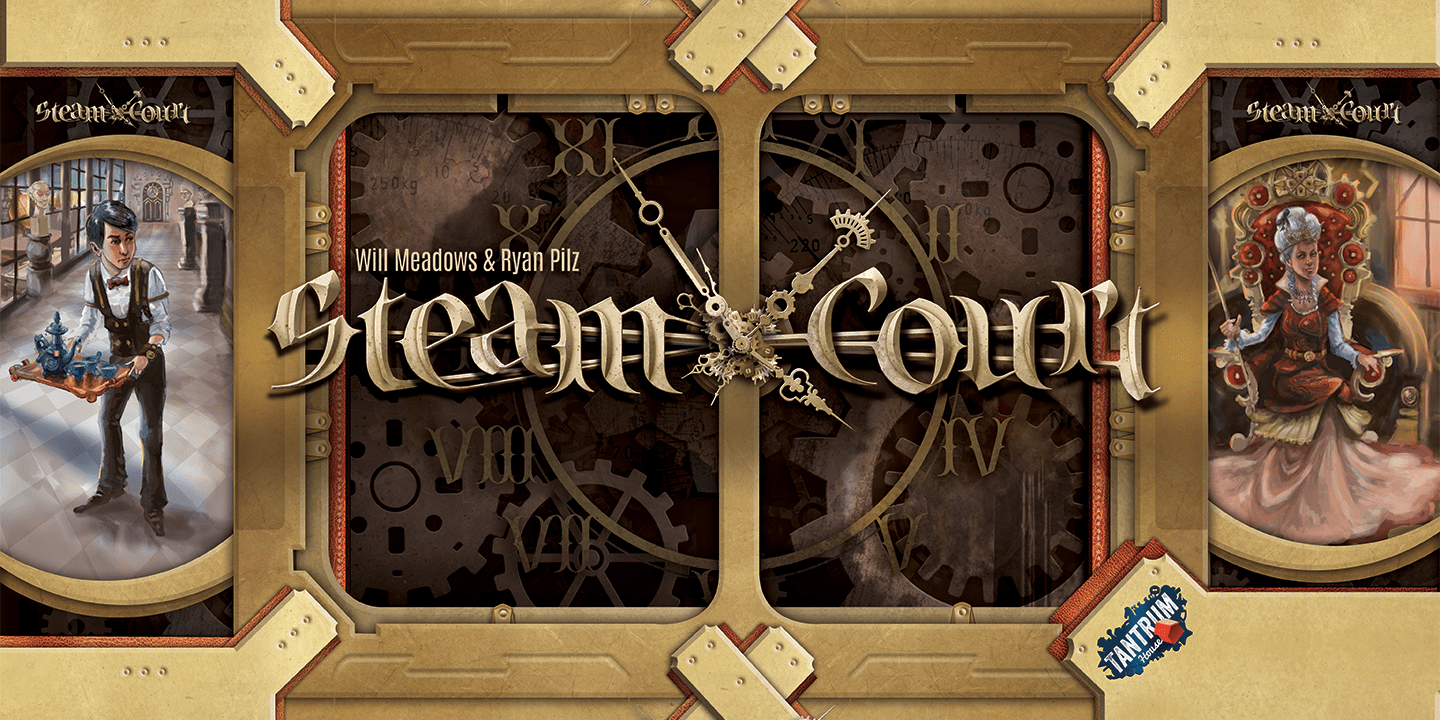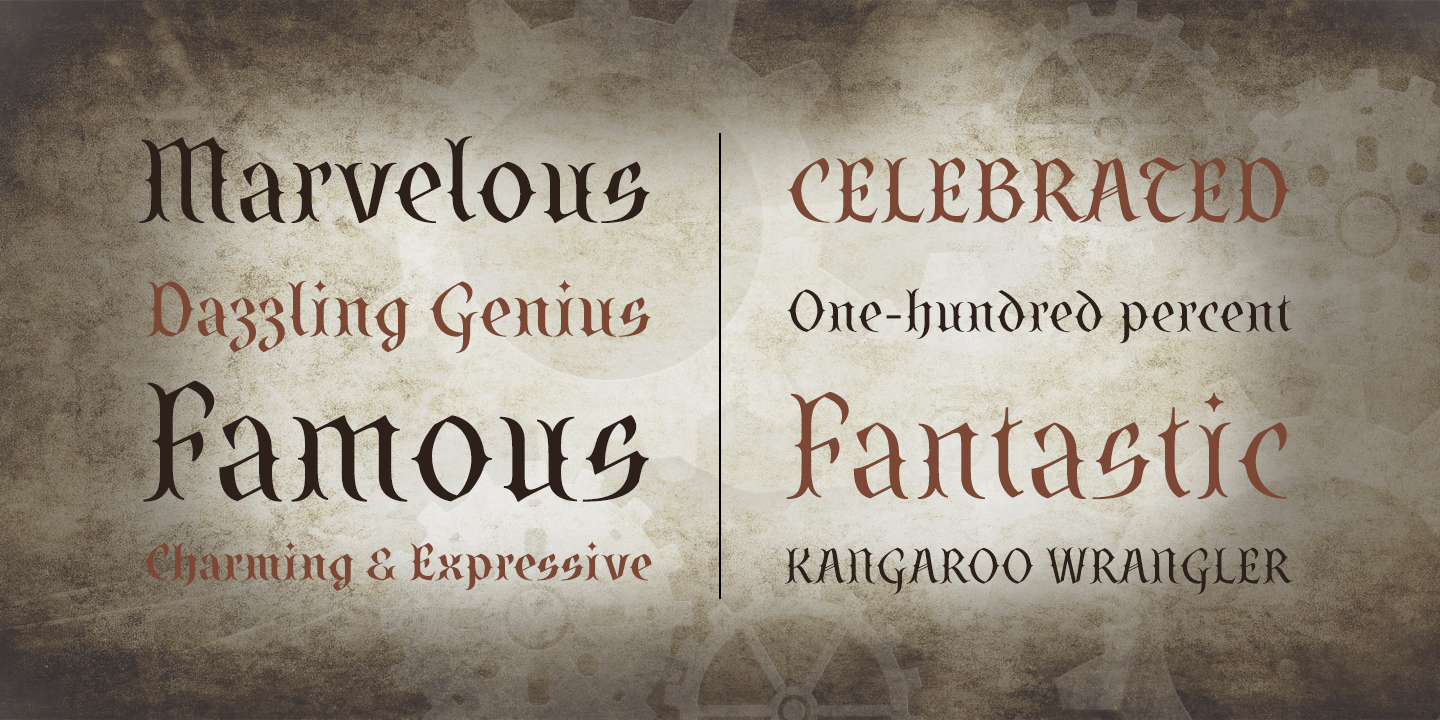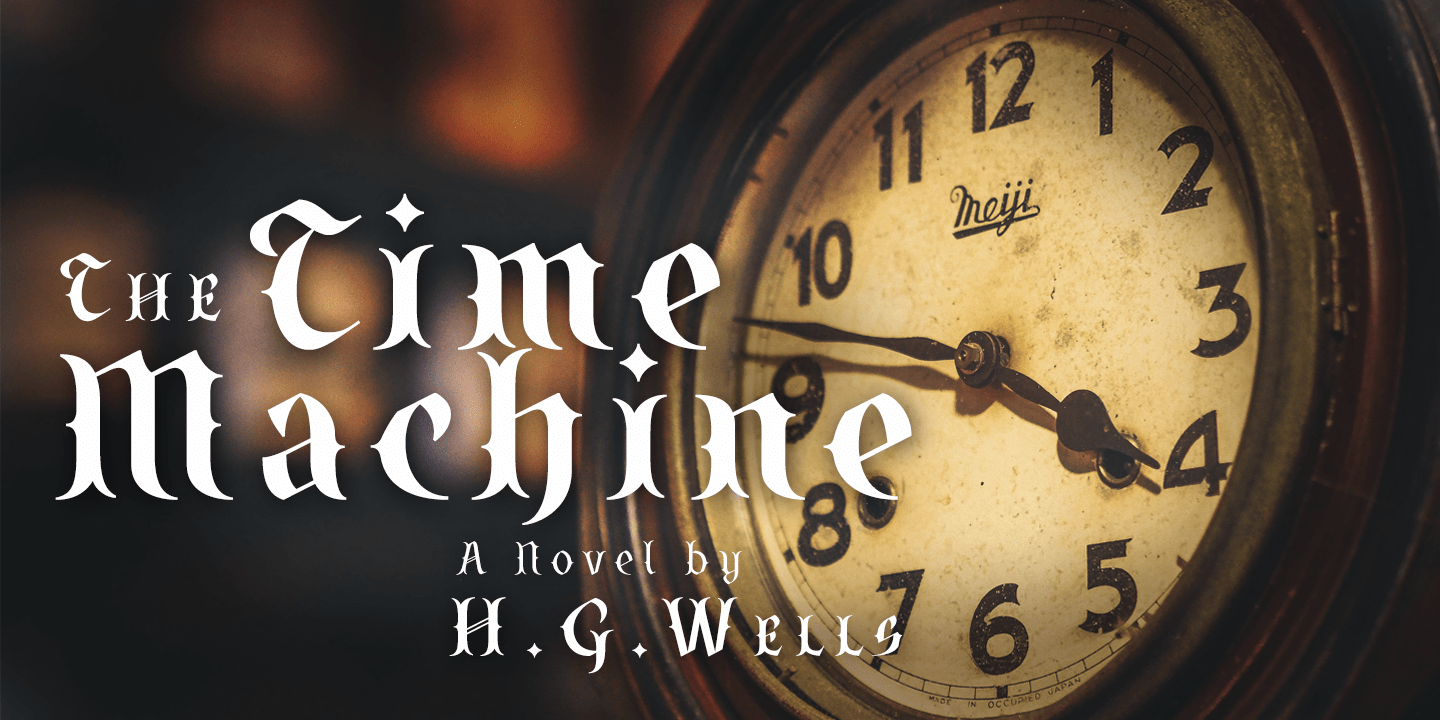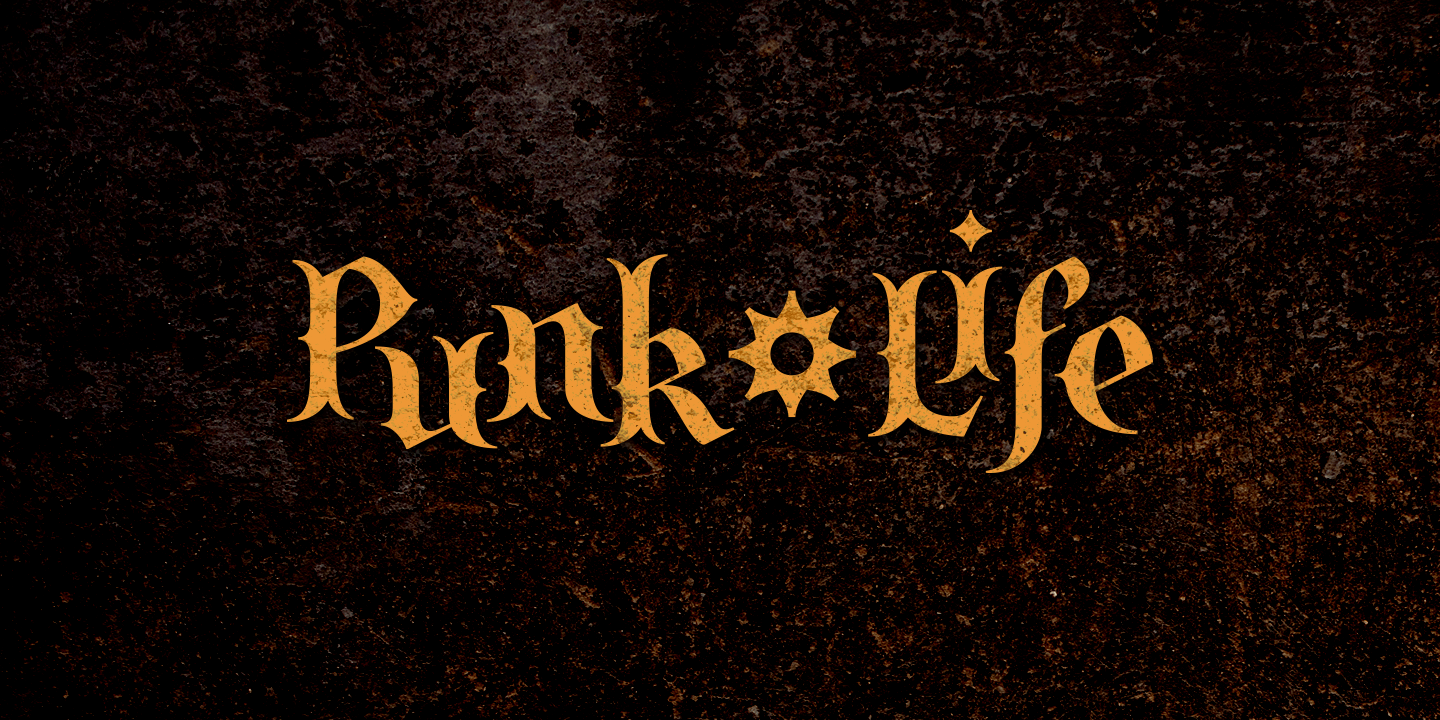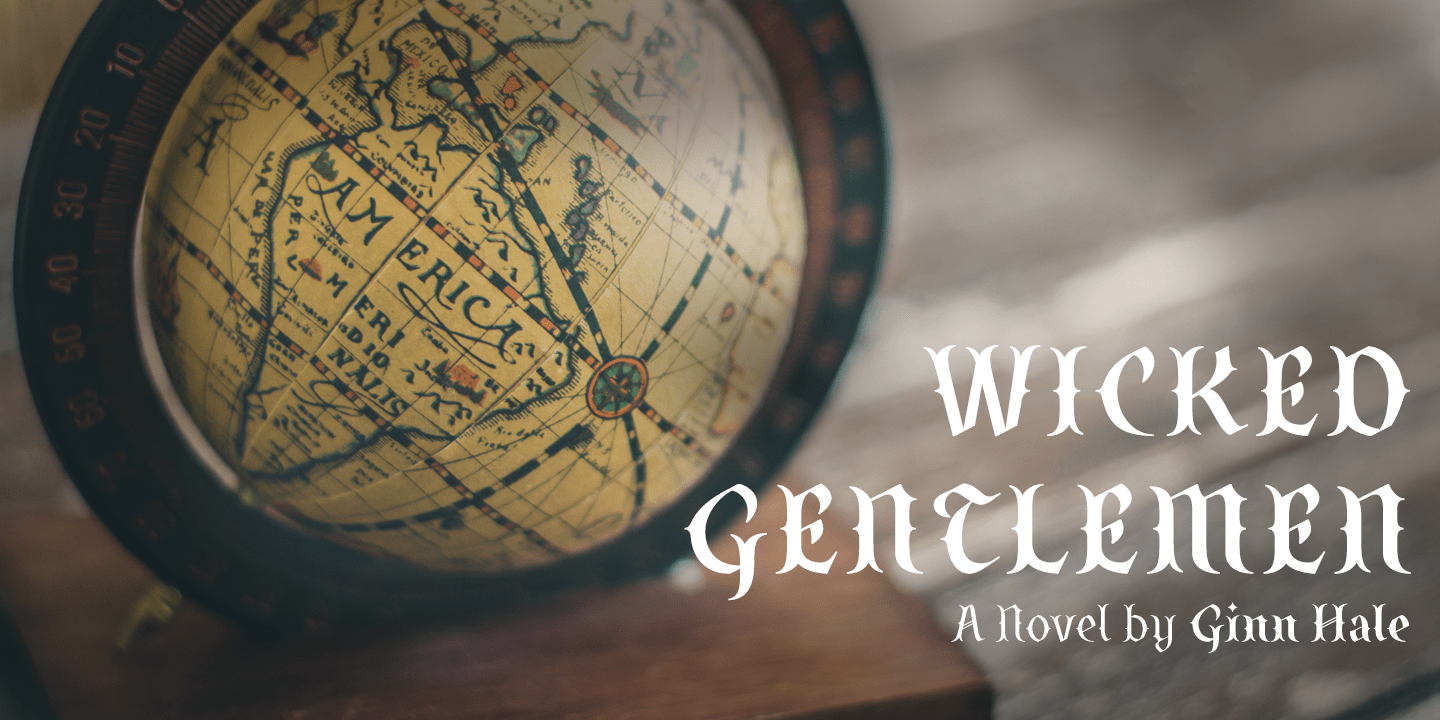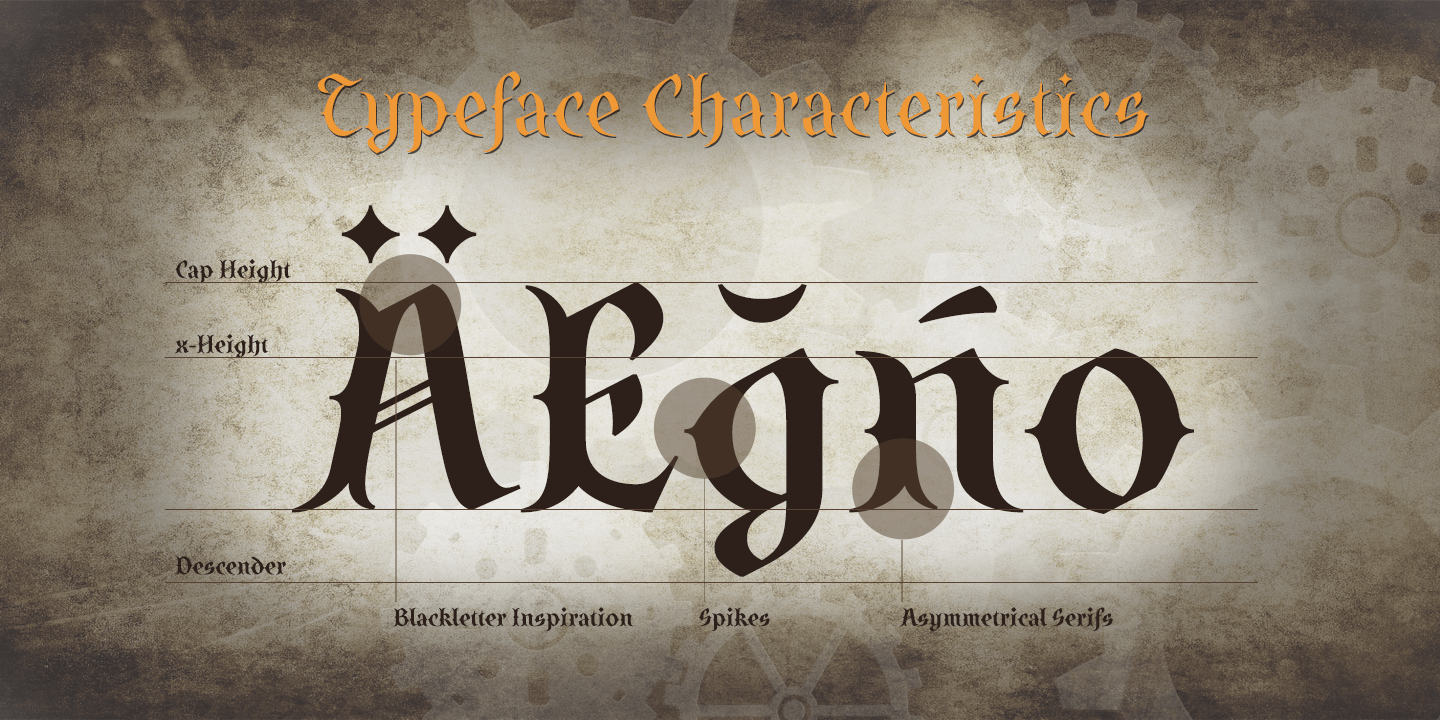
About SteamCourt
Think smart. Think regal. Think SteamCourt, a new font designed specifically for the card game SteamCourt. A bit of background if you will: In early 2014, some friends from my college days banded together to form their own game company. Their first…